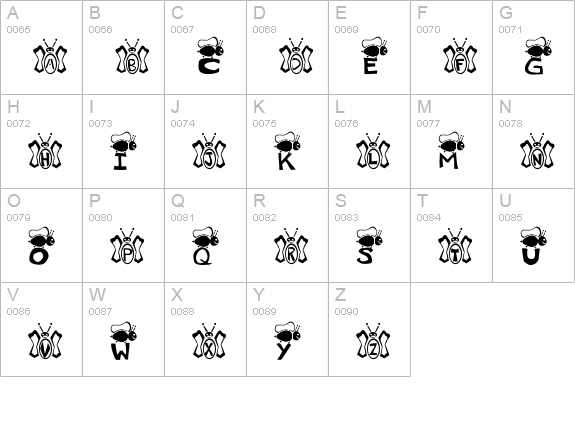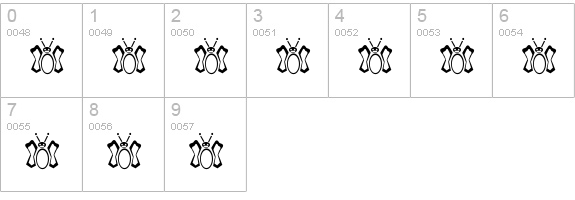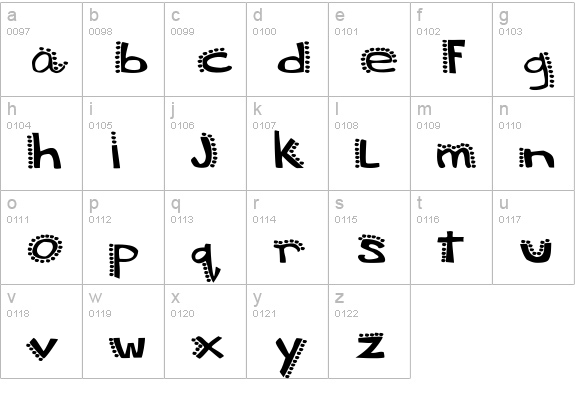
Krisfly Font Details
Krisfly font is a versatile and elegant typeface that exudes sophistication and modernity. With its sleek lines and stylish design, this font is perfect for a wide range of design projects, from branding to editorial design. Krisfly font offers a unique blend of classic and contemporary elements, making it ideal for creating eye-catching and memorable compositions. What sets Krisfly font apart is not just its aesthetic appeal, but also the fact that it is available for free download at FontsMarket.com. This means that you can easily access and use this stunning font in your projects without any cost involved. Whether you're working on a personal project or a professional design assignment, Krisfly font will elevate your work and help you achieve the desired impact. Download Krisfly font today and unleash your creativity with this exceptional typeface!